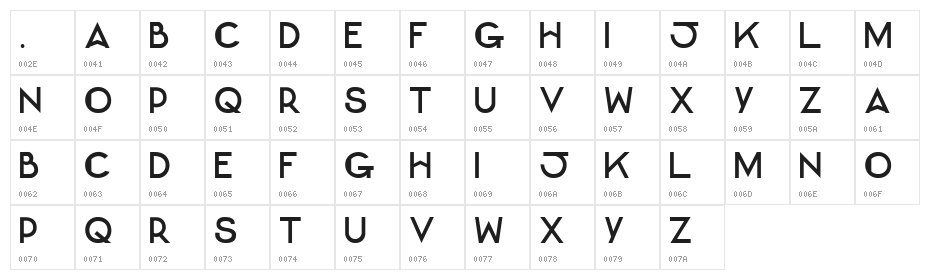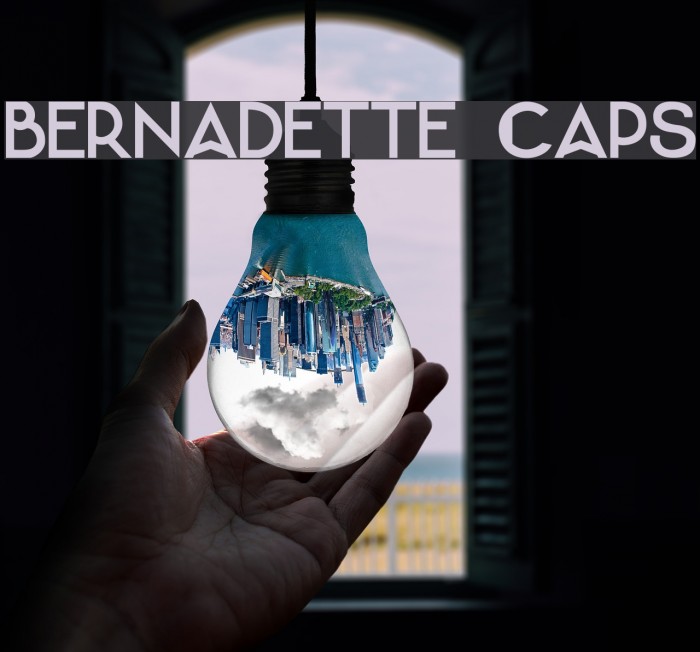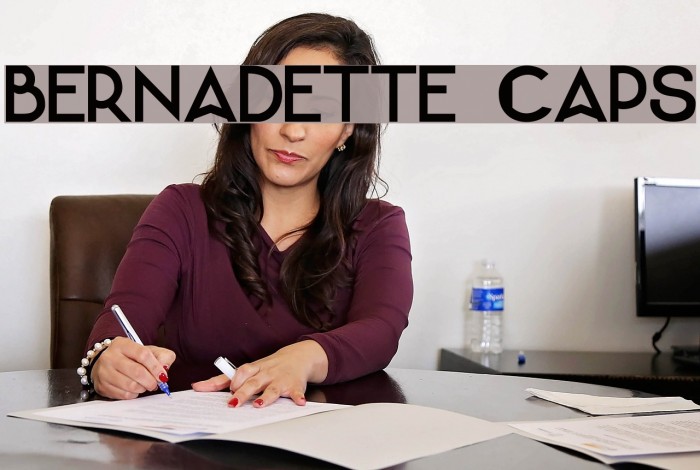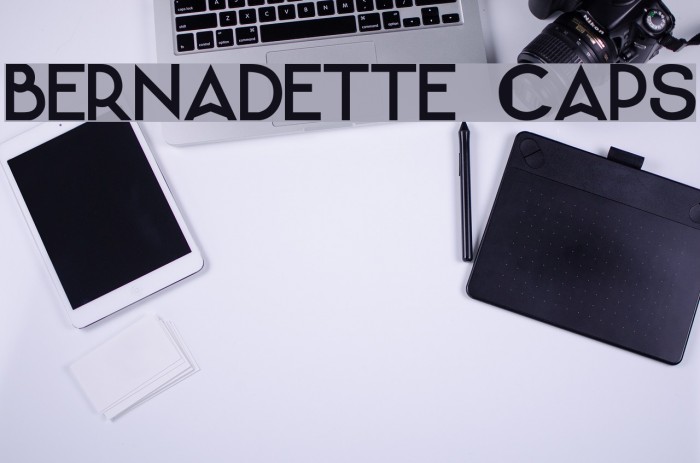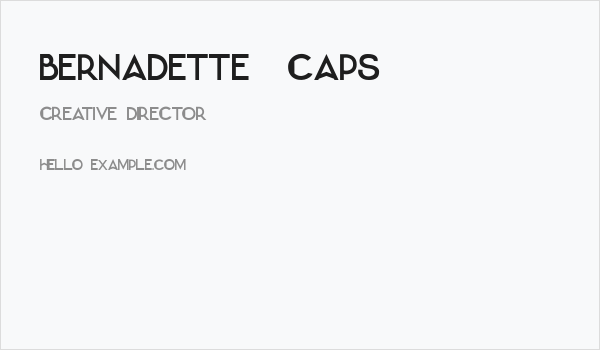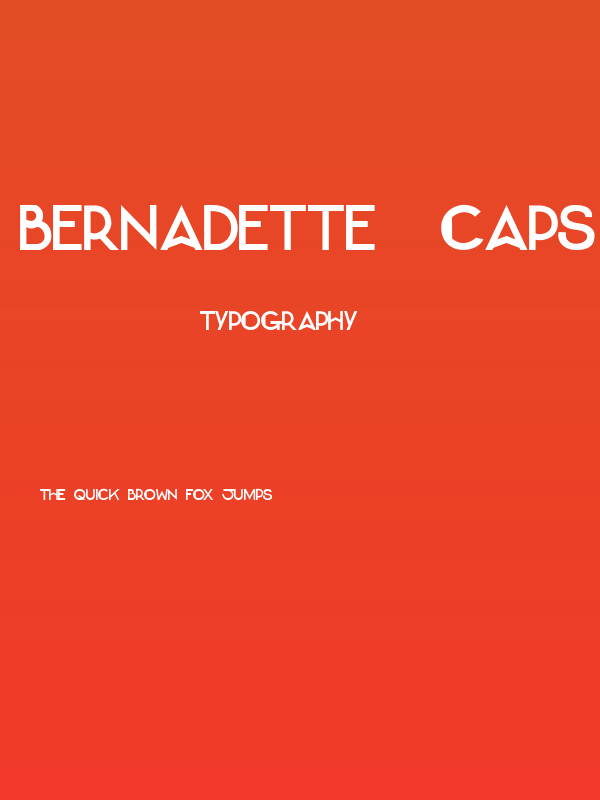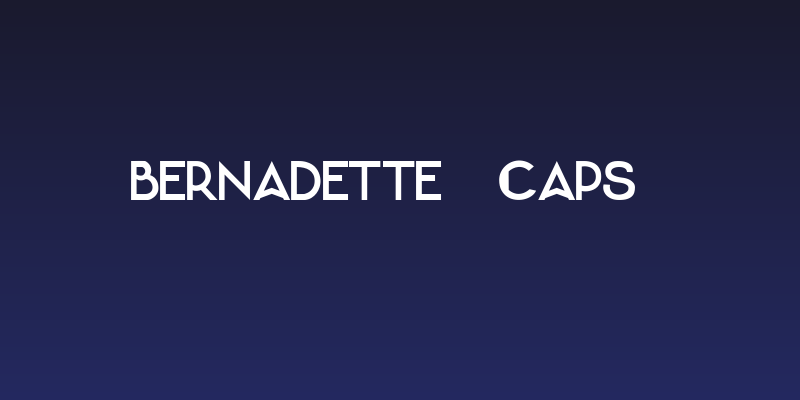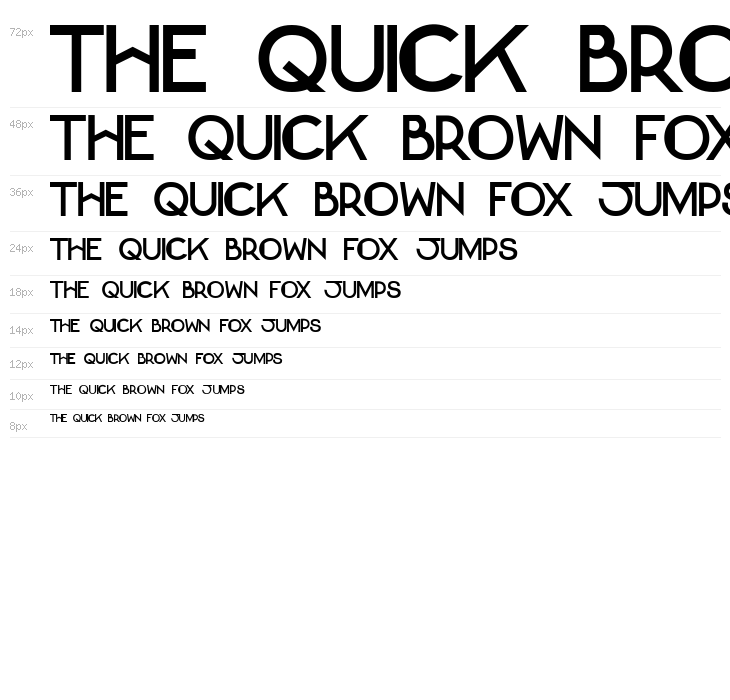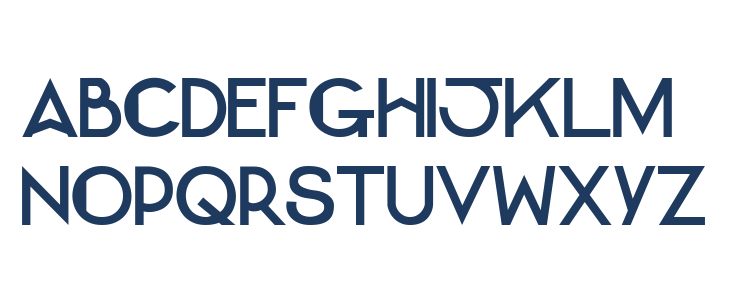
Bernadette [Caps] Font
Bernadette [Caps] Description
This font features a bold and geometric design with a modern aesthetic. The characters are constructed with sharp angles and clean lines, creating a striking and contemporary appearance. The uppercase letters are uniform in height, with a consistent stroke width that gives the font a cohesive look. The absence of serifs and the use of straight edges contribute to its sleek and minimalistic style. The font's design is highly legible, making it suitable for various applications that require a clear and impactful visual presence.
| Proposed Projects | Ideal for branding, advertising, posters, and headlines where a modern and bold statement is needed. |